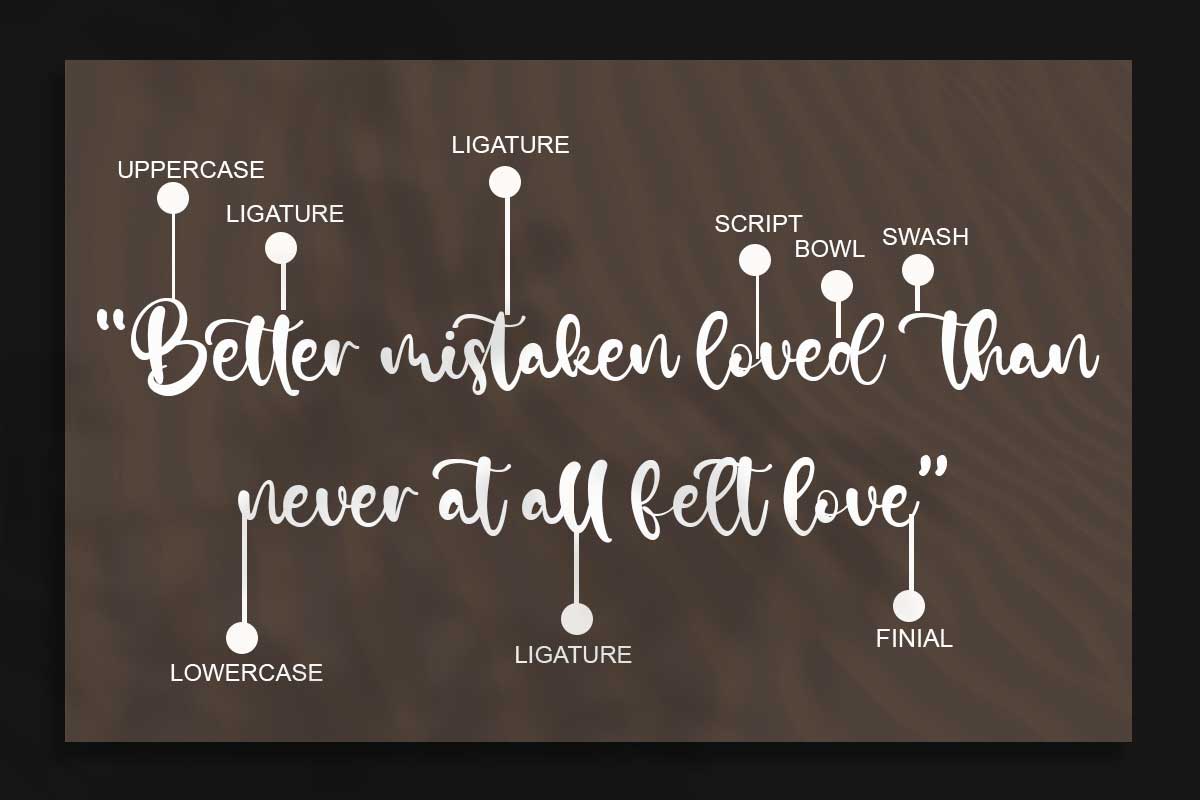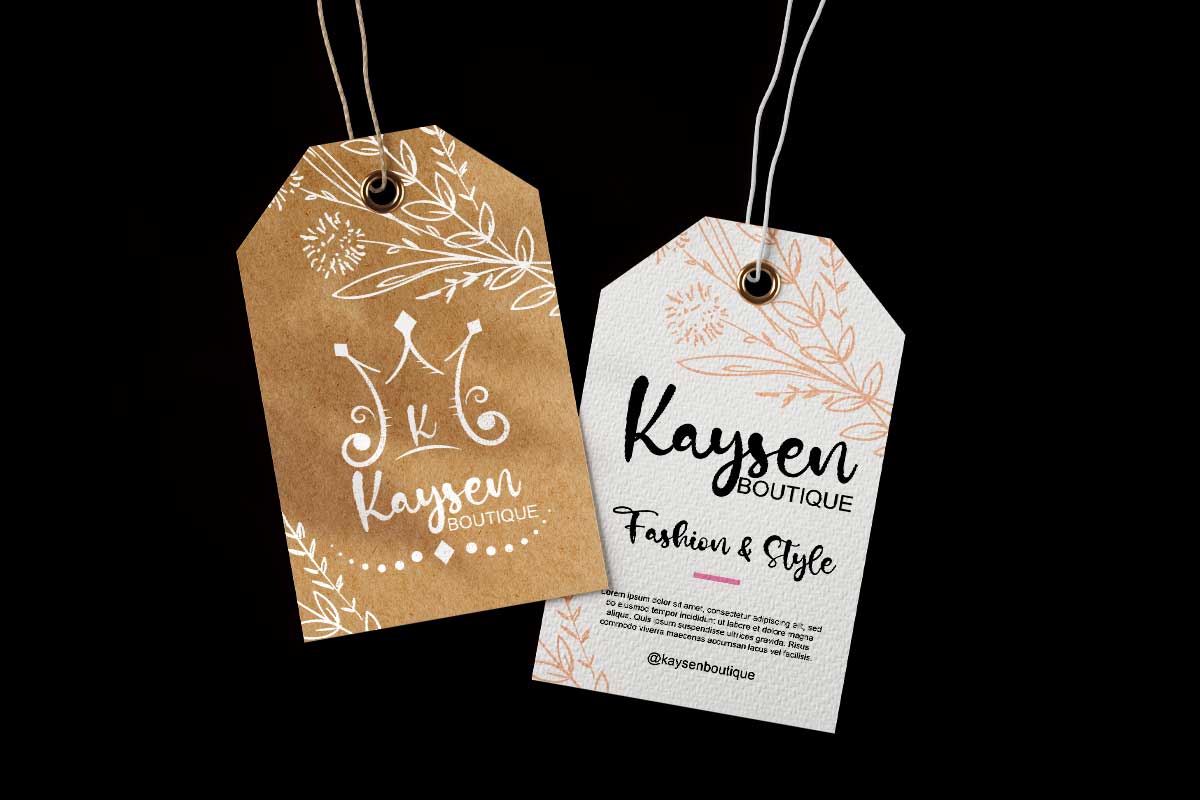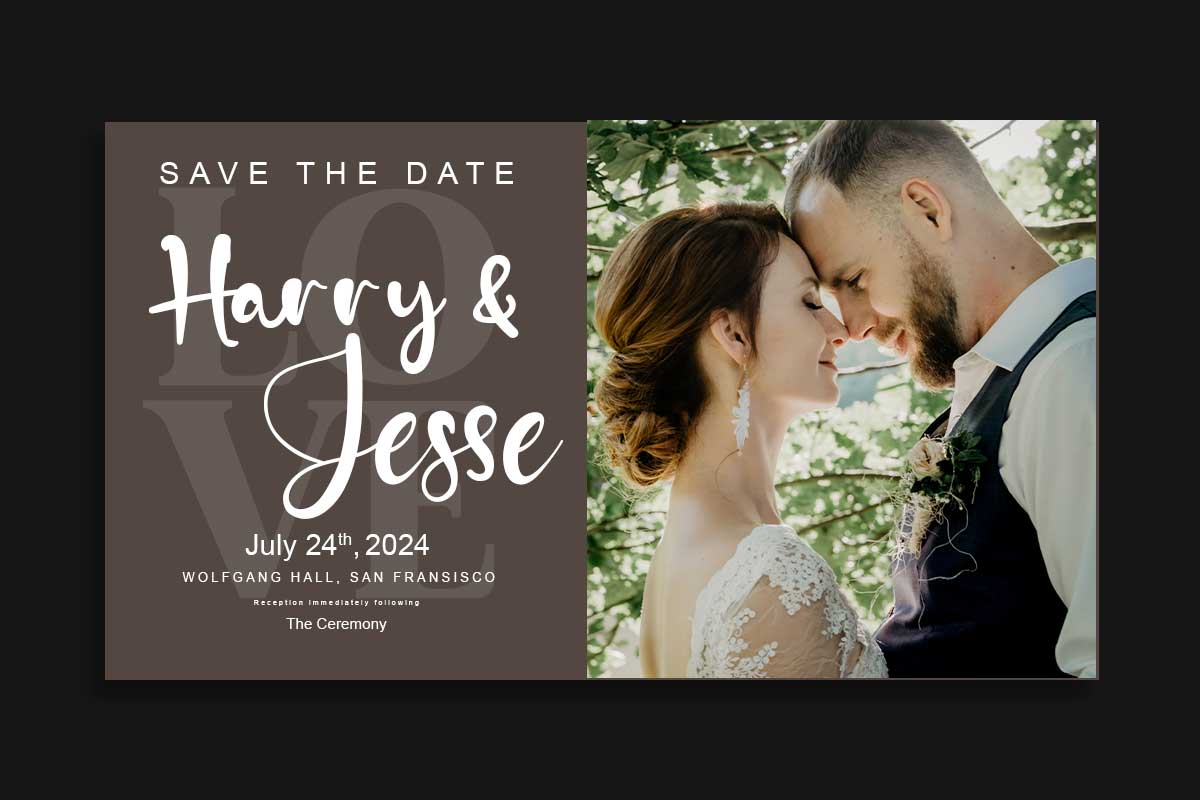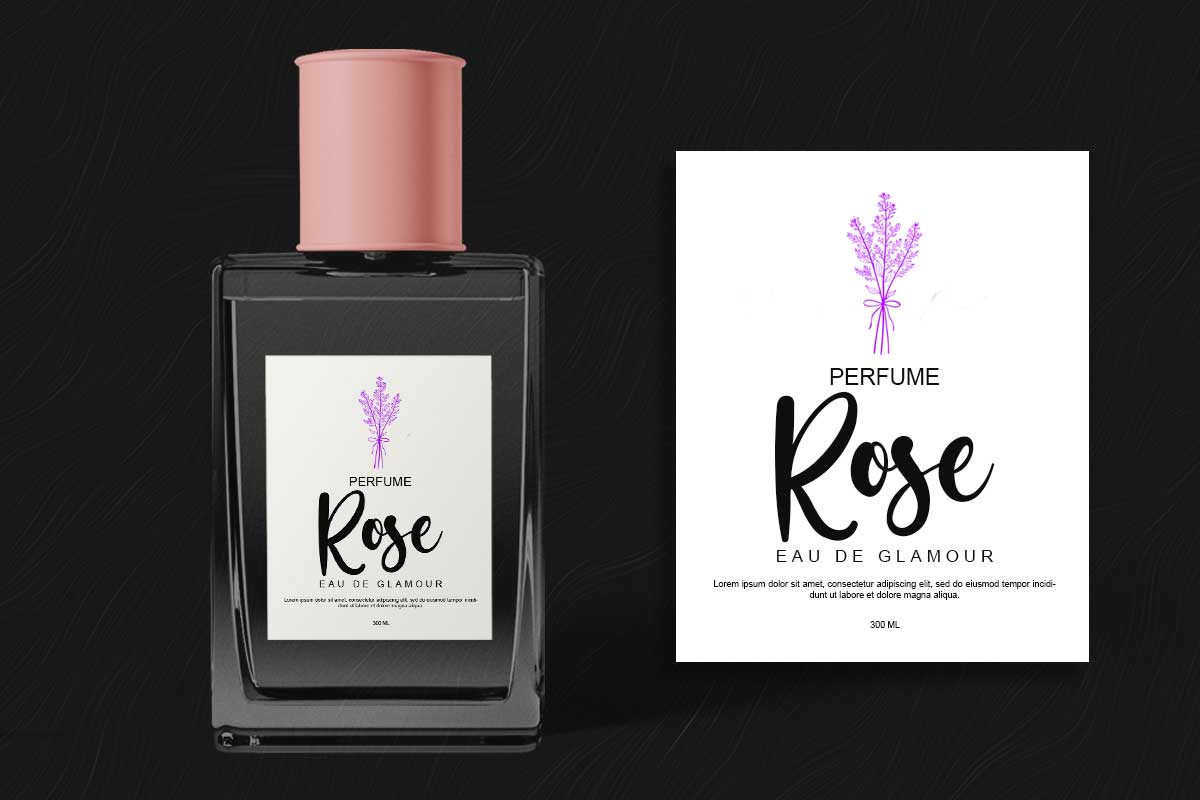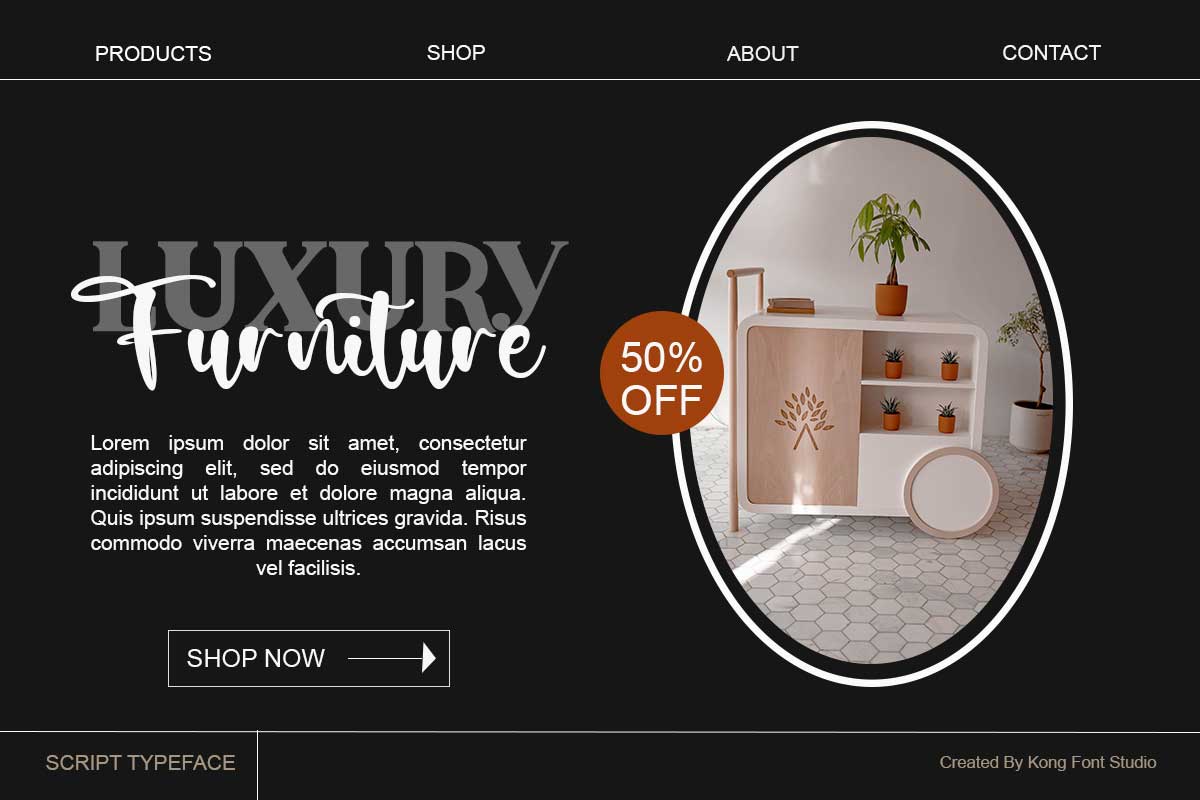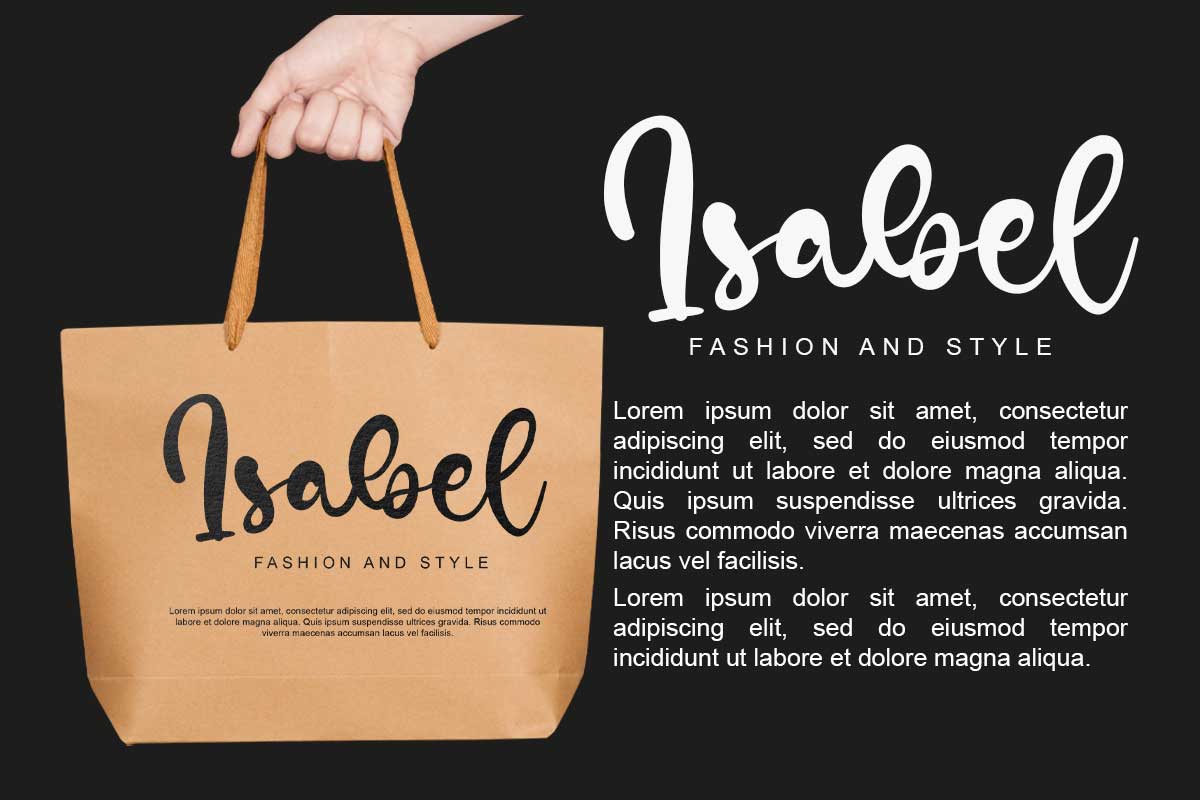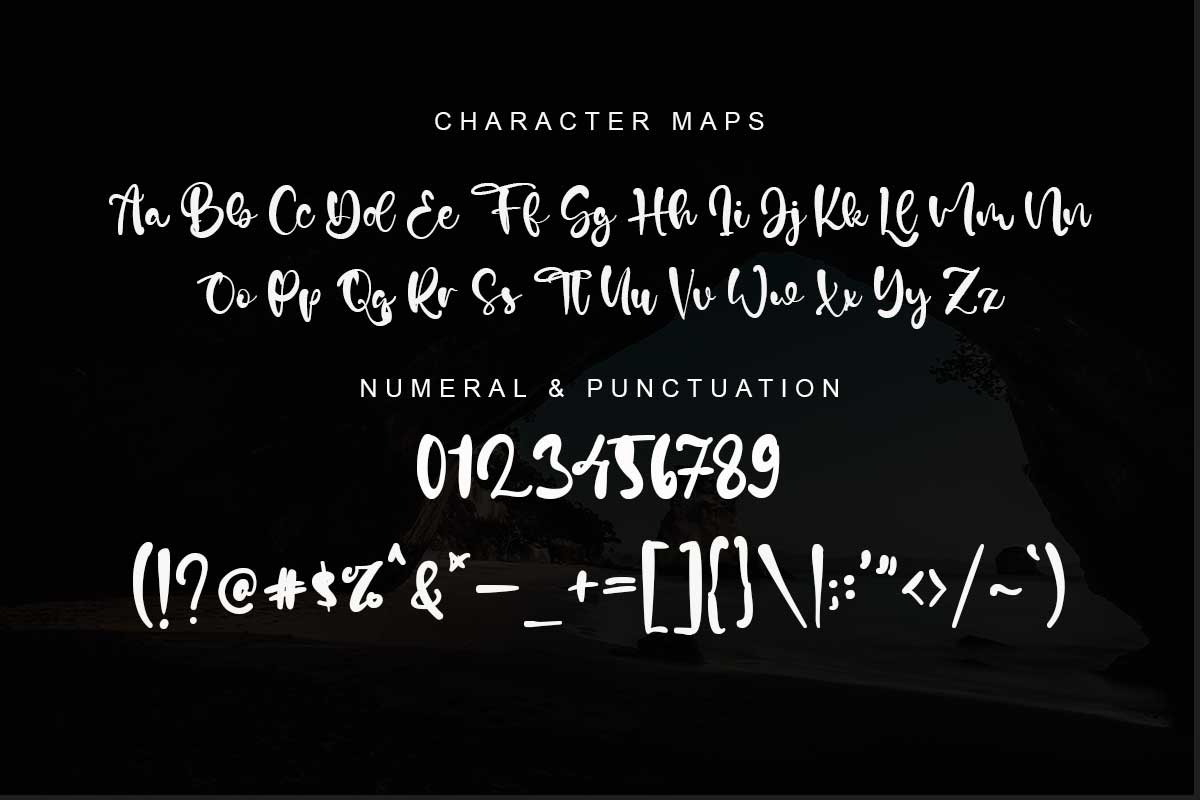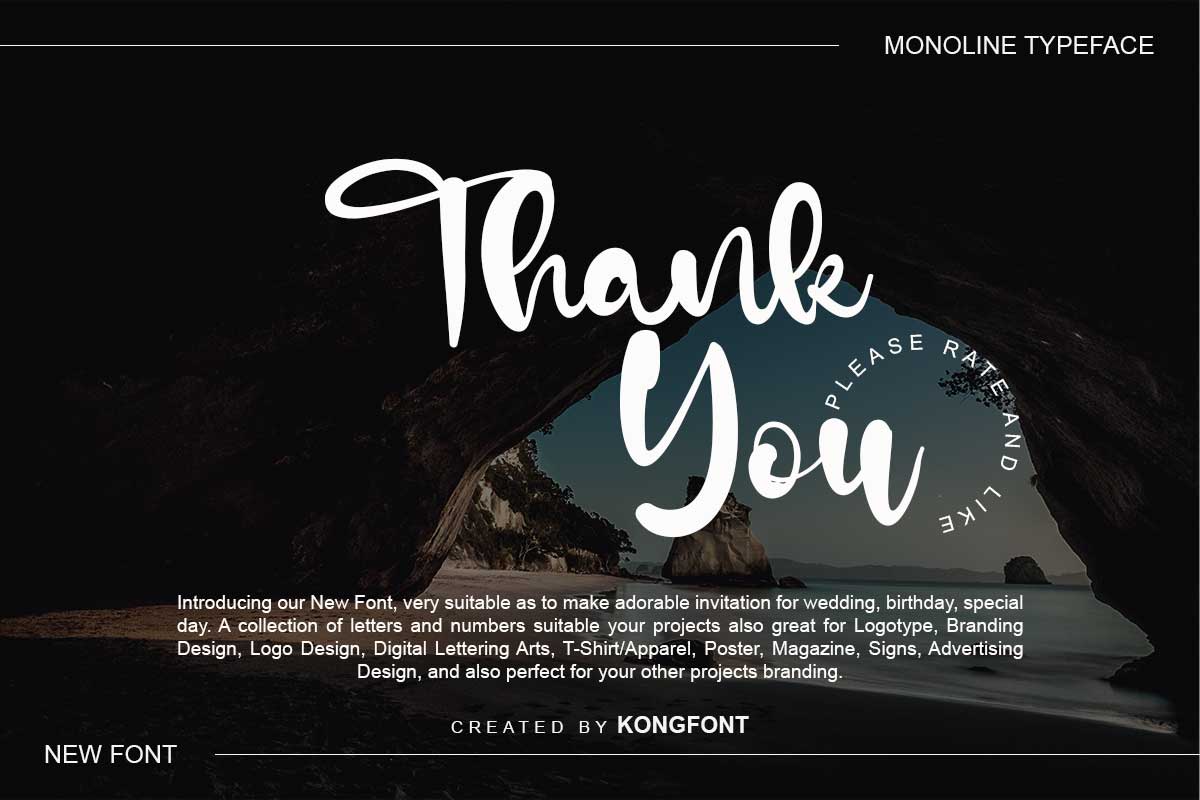
Ocean Castle Calligraphy Font
Beautiful fonts are certainly not created just like that. Ocean Castle Calligraphy Font exists as proof that fonts can exude an aura of their own. This font is part of the Script & Signature fonts. The font was in beautiful shape. We can see the characteristics of the fonts that connect each other between the letters. It includes eligible fonts.
Ocean Castle Calligraphy Font appearance makes it suitable to be combined with objects that want to present a simple, elegant, and luxurious impression. Perfume brands will look more charming when combined with this font. Also, this font can use on weddings, posters, and magazine covers. It is also good to use for photography services promotion, making motivational quotes, and film titles.
From the description of the characteristics and uses mentioned above, Ocean Castle Calligraphy Font is very suitable when used with medium font size. If printed in large size and viewed from a distance, it will not be easy to read and understand.